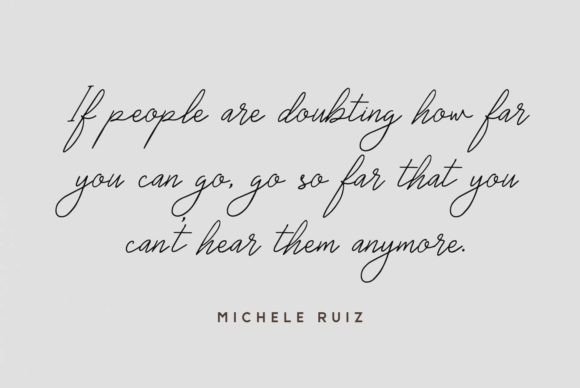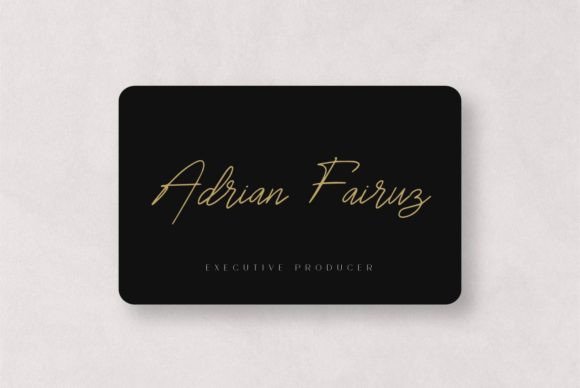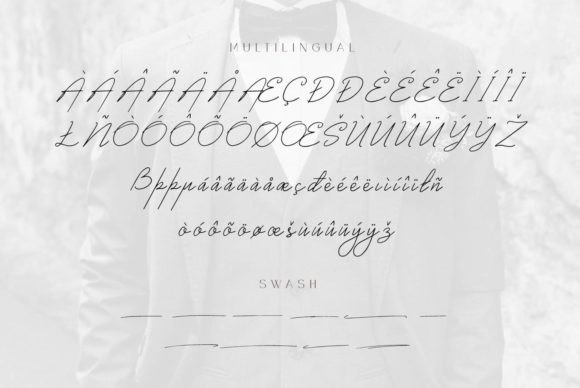
About Chowgant Signature Font
Chowgant Signature stands as a testament to the artistry of authentic typography, providing a delicate and well-rounded handwritten font that lends a timeless touch to your crafty projects. Meticulously crafted, this font is poised to elevate various applications, from wedding invitations and birthday cards to personal branding and elegant logos, ensuring that your designs stand out with sophistication and genuine charm.
The delicacy and well-rounded features of Chowgant Signature contribute to its versatility, making it an ideal choice for projects that demand a handcrafted aesthetic. Its timeless appeal brings a touch of authenticity to the forefront, creating designs that resonate with a sense of genuine artistry.
In the realm of wedding invitations, Chowgant Signature serves as a bridge between elegance and personalization. Its handwritten style adds a bespoke quality, ensuring that each invitation carries a unique and heartfelt touch. Similarly, for birthday cards, the font conveys a sense of celebration and warmth, making your greetings more than just words on paper.
For personal branding, Chowgant Signature becomes a visual representation of authenticity. Its delicate strokes and well-rounded characters convey a sense of approachability, creating a connection between the brand and its audience. Elegant logos, when crafted with this font, carry a distinct and refined identity, setting the tone for a sophisticated brand presence.
As you incorporate Chowgant Signature into your crafty and creative endeavors, you witness its ability to add an extra layer of charm to your projects. The font is not merely a tool but a partner in design, enhancing your creations with a delicate and authentic typography element.
Whether in digital or print media, Chowgant Signature leaves a lasting impression, transforming ordinary designs into visually distinctive and memorable pieces of art. It stands as a testament to the power of handwritten aesthetics in creating designs that resonate, connect, and leave an indelible mark on the hearts of your audience. Let Chowgant Signature be the signature touch that elevates your crafty projects, making them timeless, genuine, and truly stand out in the realm of design.